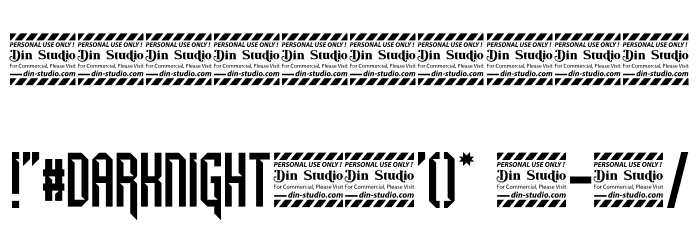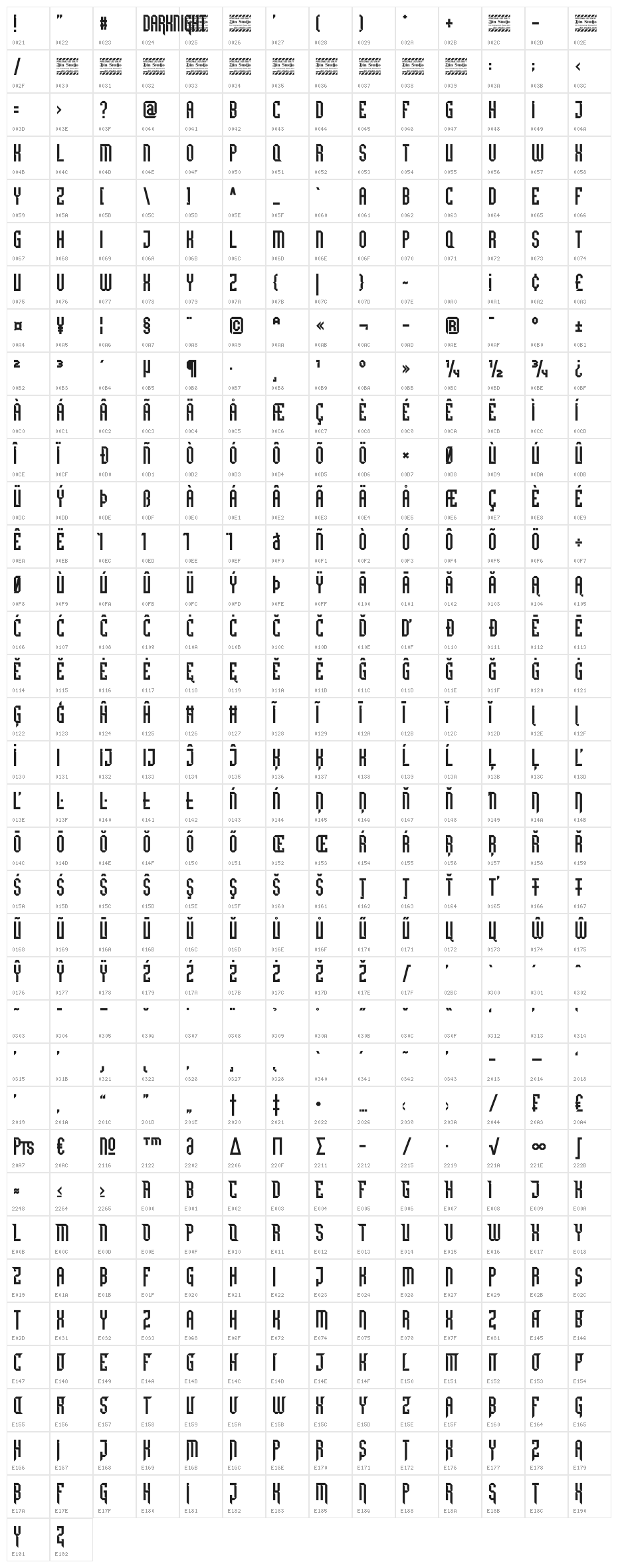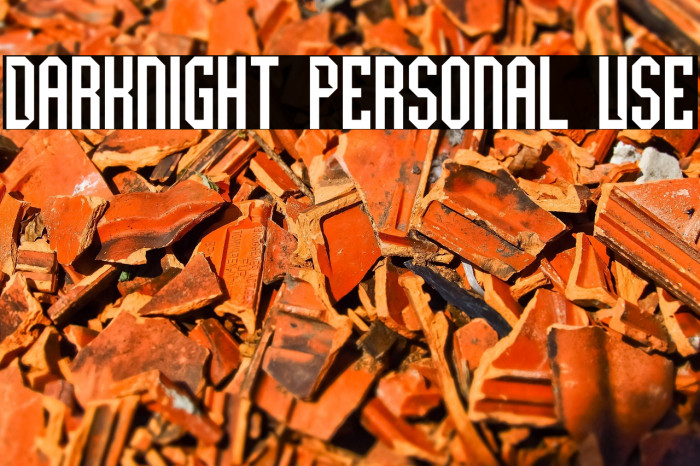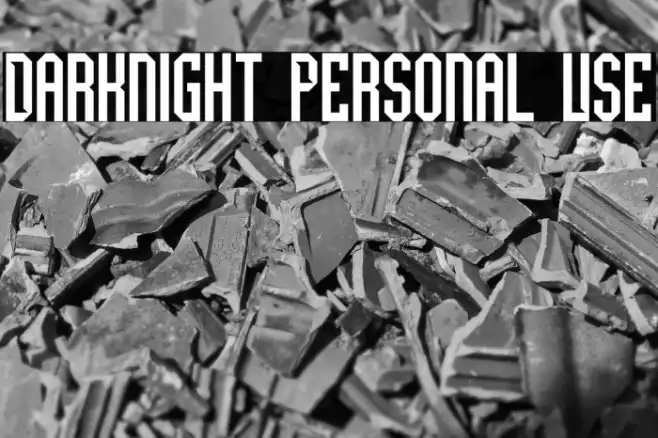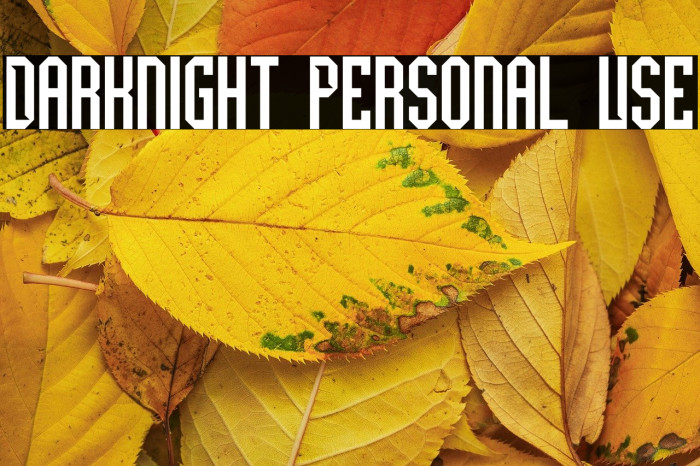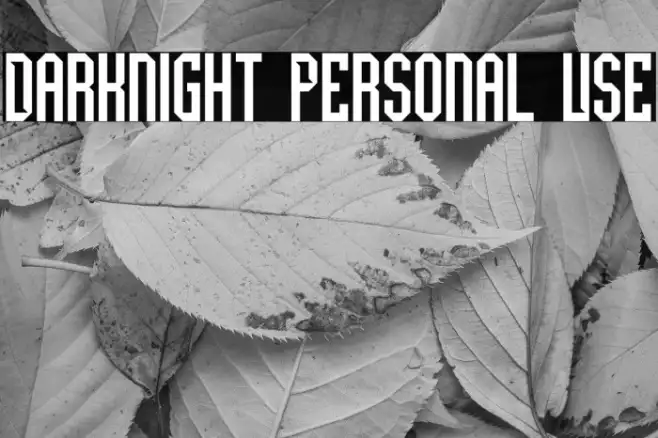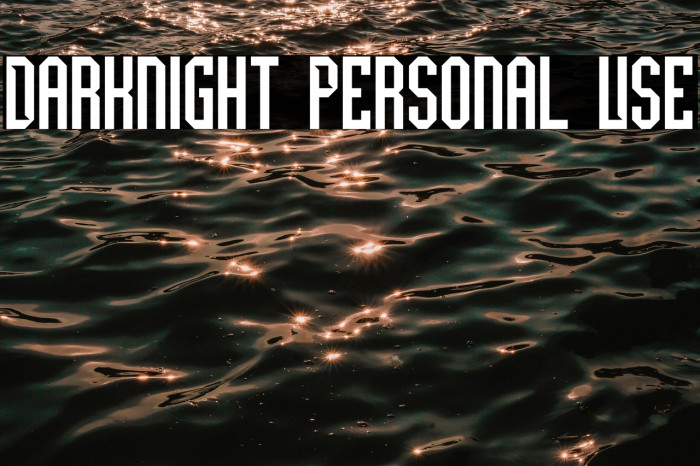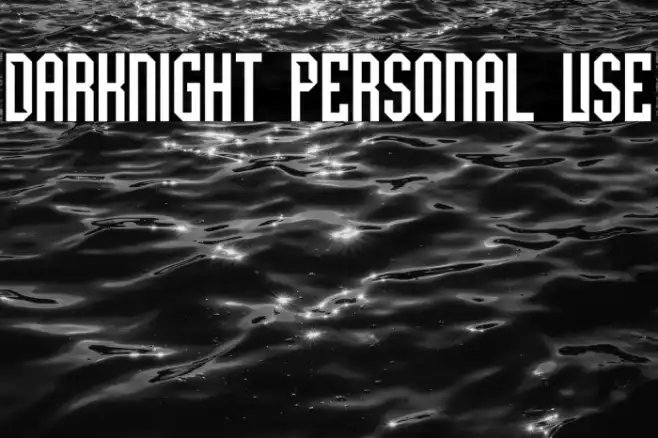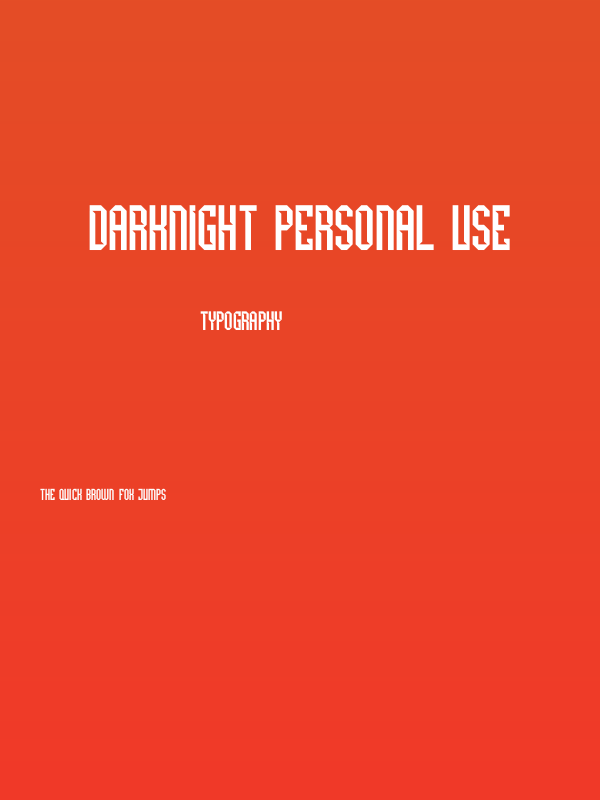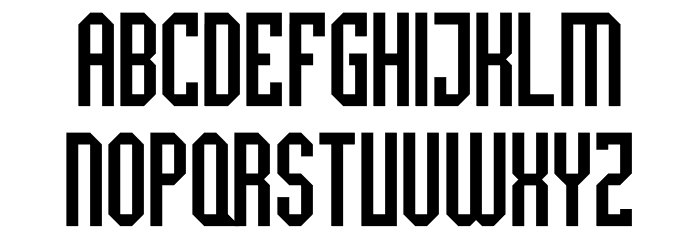
Darknight Personal Use Font
Darknight Personal Use Description
This font features a bold, geometric design with sharp angles and a futuristic aesthetic. The uppercase letters are tall and narrow, creating a striking and imposing presence. The characters are consistent in height and width, contributing to a uniform appearance. The font's style is reminiscent of modern architectural elements, with a focus on clean lines and minimalistic forms. The special characters and numbers maintain the same angular and structured design, ensuring cohesion across all elements. This font is ideal for projects that require a strong visual impact and a contemporary feel.